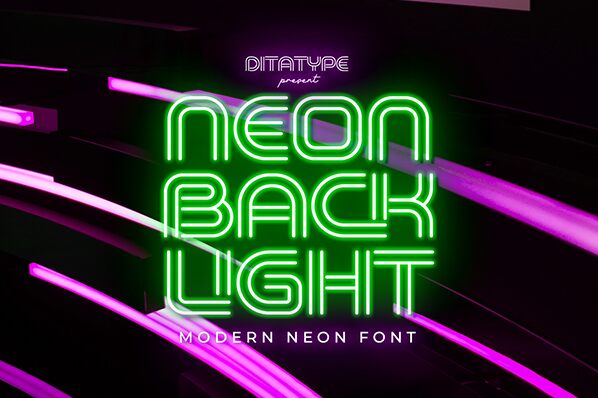
Neon Backlight
Neon Backlight by Ditatype is a dazzling display font that captures the essence of techno aesthetics with its striking neon-inspired design. This typeface features an eye-catching light font style, characterized by its unique play of boldness and minimalism that evokes a sense of vibrant modernity.
Visually, Neon Backlight stands out with its fluid lines and dynamic energy, making it perfect for attention-grabbing graphics. Its expansive forms enhance readability while imbuing projects with a contemporary flair. The futuristic vibe makes it ideal for use in nightlife promotions, tech branding, or creative artworks that demand a bold statement.
Embrace Neon Backlight’s captivating charm to elevate your designs and leave a lasting impression across various mediums.